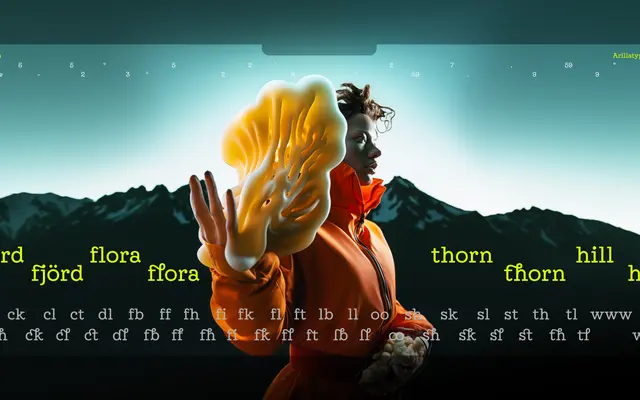
At Briega
A contemporary reworking of Charles Robert Ashbee's 1901 Endeavour typeface by Rubén Chumillas, extended with floral titling caps, discretionary ligatures and nearly 1,000 glyphs.
Originally conceived as a revival of Ashbee's Arts and Crafts-era Endeavour, the design has moved away from strict historical reproduction toward something more hybrid in character. The glyph set of 931 characters includes stylistic alternates, old-style figures, tabular figures and a set of decorative floral capitals that give it a strong titling personality. With only a single Regular weight, its appeal is centred on expressive editorial and branding contexts rather than multi-weight typesetting systems.
Rooted in Charles Robert Ashbee's 1901 Endeavour typeface, At Briega sits in the Arts and Crafts serif tradition with decorative ligatures, floral titling caps and a craft-inflected character that places it firmly in the ornamental serif subcategory.